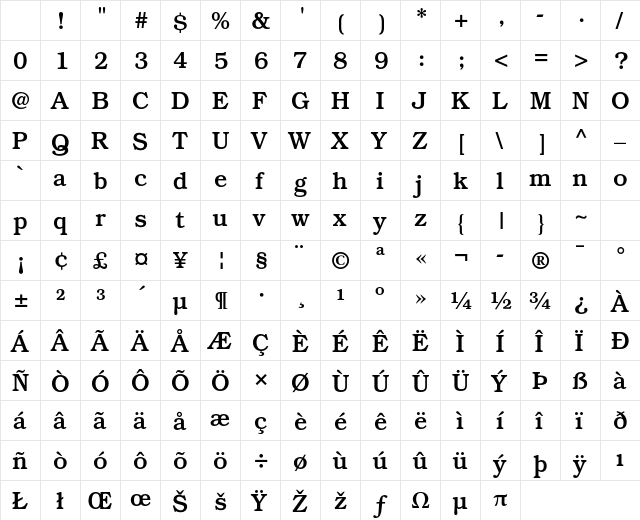
Complete Bookman ITC Std Medium glyph index. Displaying only characters natively supported by Bookman ITC Std Medium font.
Bookman ITC Std is a composed and adaptable typeface that performs quietly and consistently across a wide range of design contexts.
Pro Tip: Use Bookman ITC Std in both headline and body roles to test its range before committing to a single application.